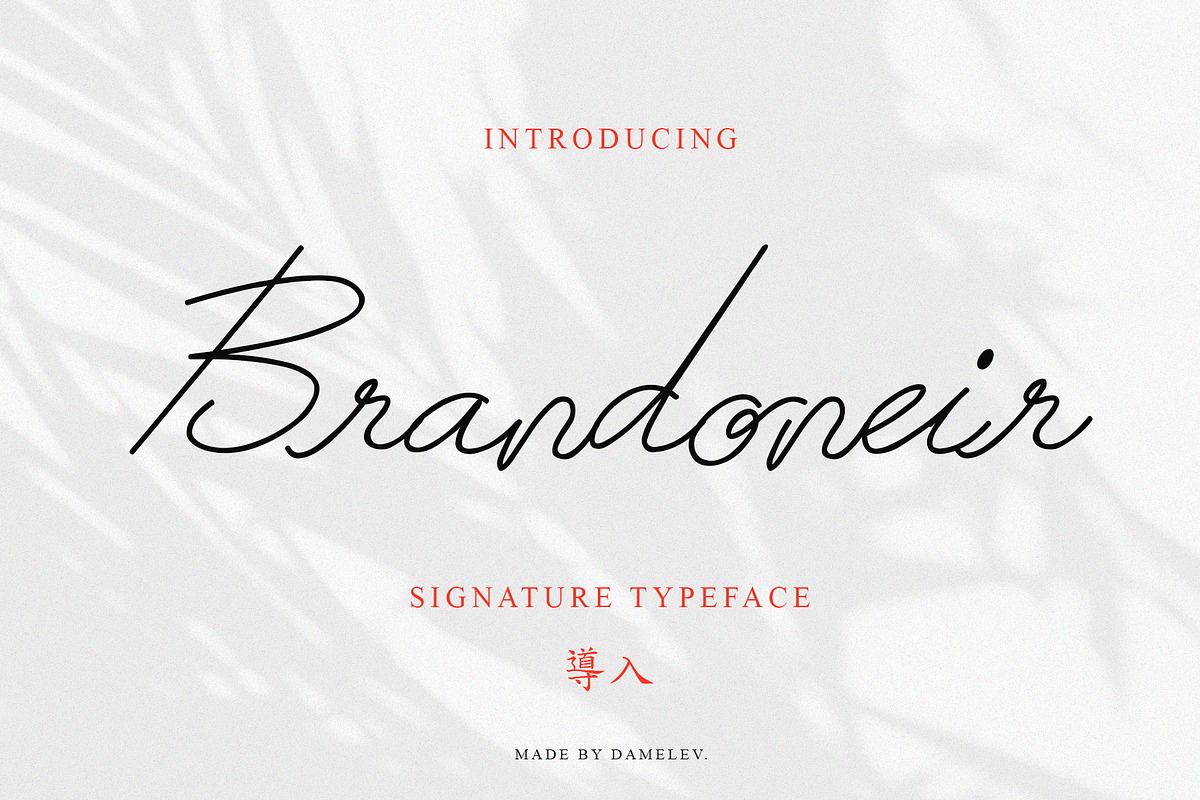
Brandoneir Signature Font Free Download is an elegant, handcrafted script typeface that captures the charm of a natural handwritten signature. With flowing lines and stylish curves, this font is perfect for personal branding, logos, business cards, fashion labels, and wedding stationery that needs a refined and personal touch.
Its authentic pen-style strokes add a sense of sophistication and individuality to any design. Whether you're crafting social media posts, brand identities, or editorial layouts, Brandoneir adds a luxurious, signature-like feel that elevates your typography.
Designers love Brandoneir for its graceful look and versatility across digital and print media. Ready to give your designs a signature of elegance? Download Brandoneir Signature Font Free Download and bring handwritten beauty to your next creative project.